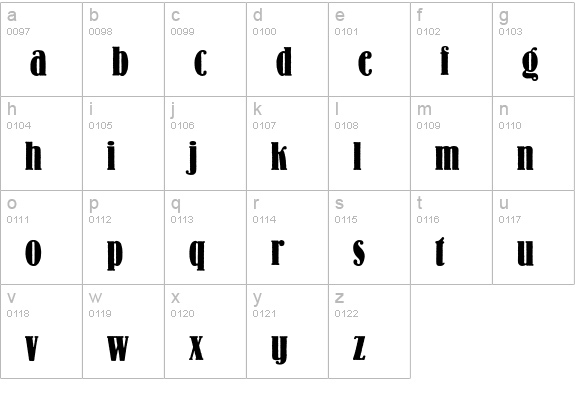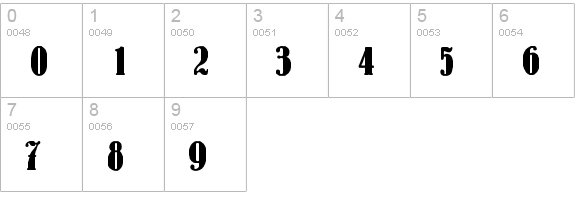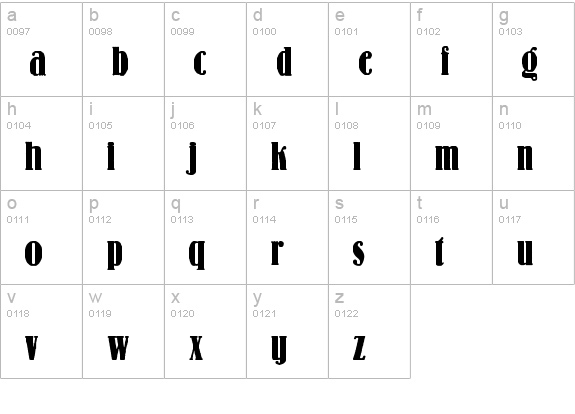
Lo-Type BQ Condensed Medium Font Details
Lo-Type BQ Condensed Medium is a balanced, medium-weight, condensed-width variant in the Lo typeface family \xE2\x80\x94 well suited to sub-headlines, navigation, and balanced editorial work.
Lo-Type BQ Condensed Medium font is a sleek and modern typeface that exudes confidence and sophistication. Its condensed design makes it perfect for creating eye-catching headlines, signage, and branding materials. The clean lines and bold strokes of this font make it both versatile and impactful. What sets Lo-Type BQ Condensed Medium font apart is that it is available for free download at FontsMarket.com. This means that you can elevate your design projects without having to worry about breaking the bank. Whether you are a professional graphic designer or a hobbyist looking to add a touch of elegance to your creations, this font is sure to impress. With its bold presence and contemporary aesthetic, Lo-Type BQ Condensed Medium font is a must-have in any designer's toolkit. Download it for free today and unleash your creativity with this stunning typeface.